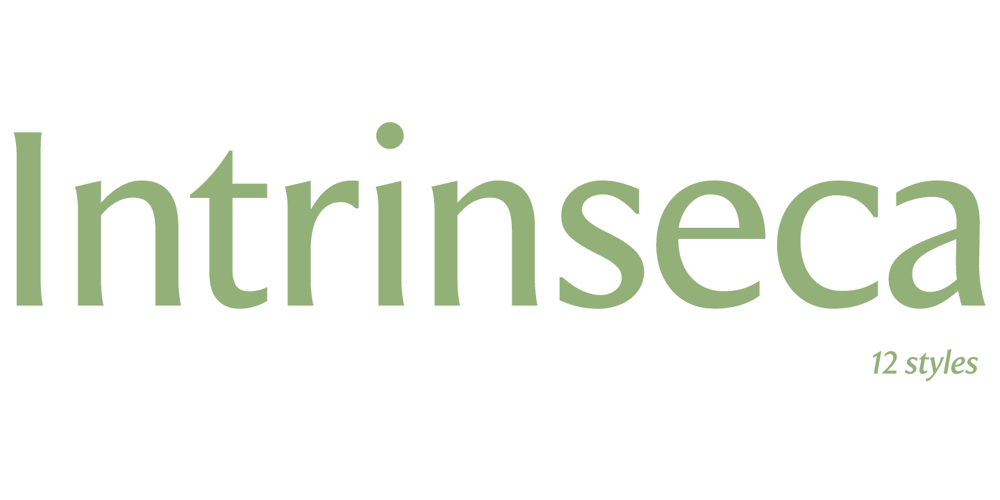
Intrinseca
Intrinseca font
Intrinseca Font Family was designed by Nicholas Garner and published by AVP. Intrinseca contains 12 styles and family package options. With only a suggestion of the serifs remaining, Intrinseca is modelled on traditional serif letterforms but with low-contrast stroke widths and a generous x-height. The family has a clean appearance and excellent readability. Six weights plus italics, small caps and extended language support make Intrinseca ideal for magazines, books and web – wherever distinctive headings and a variety of text options are required.